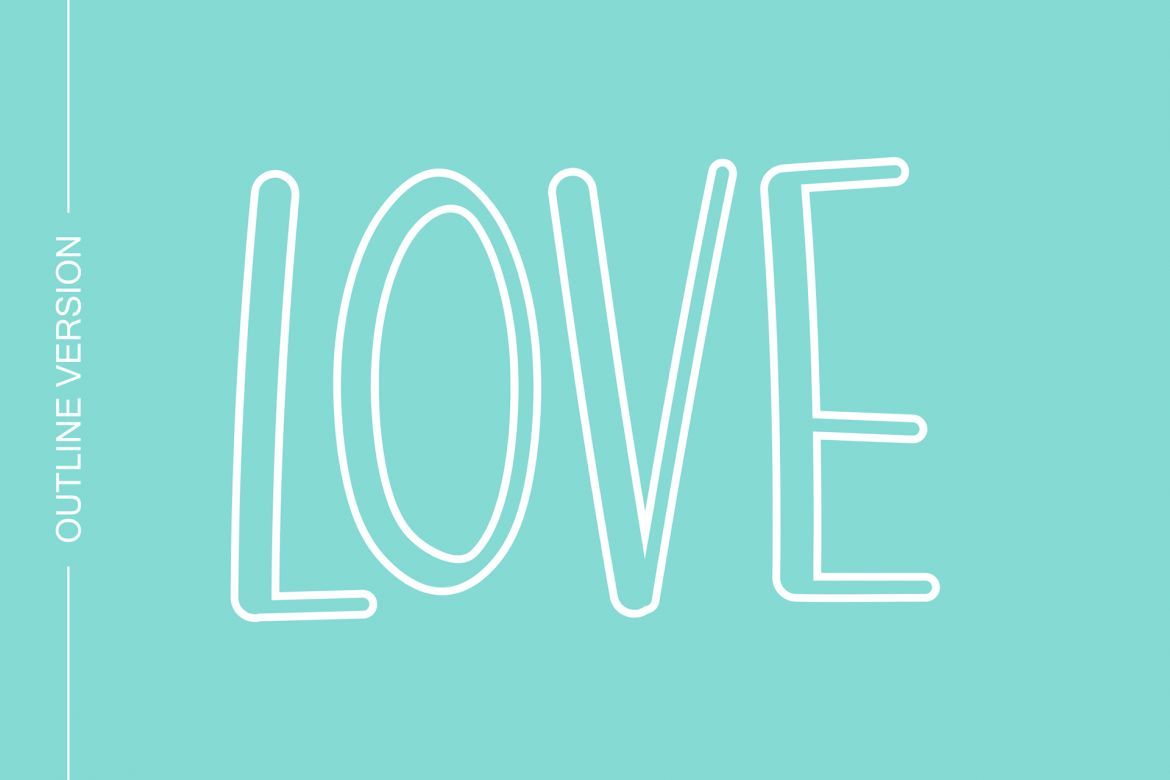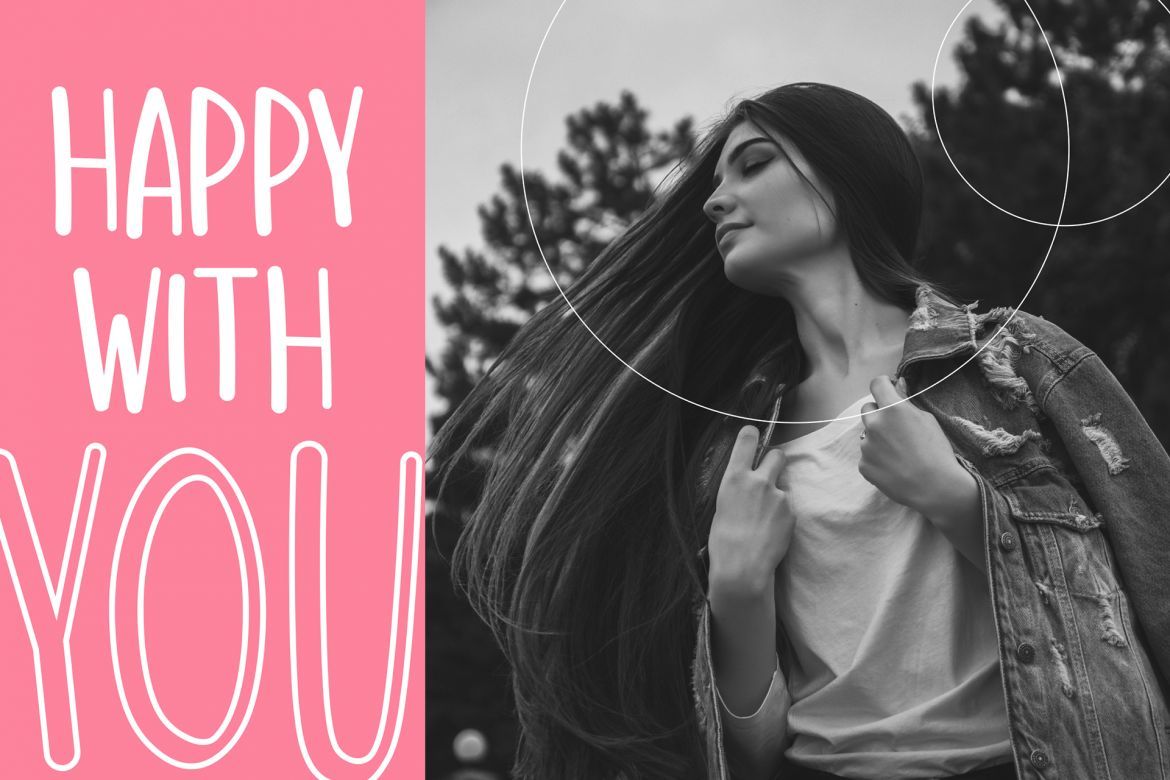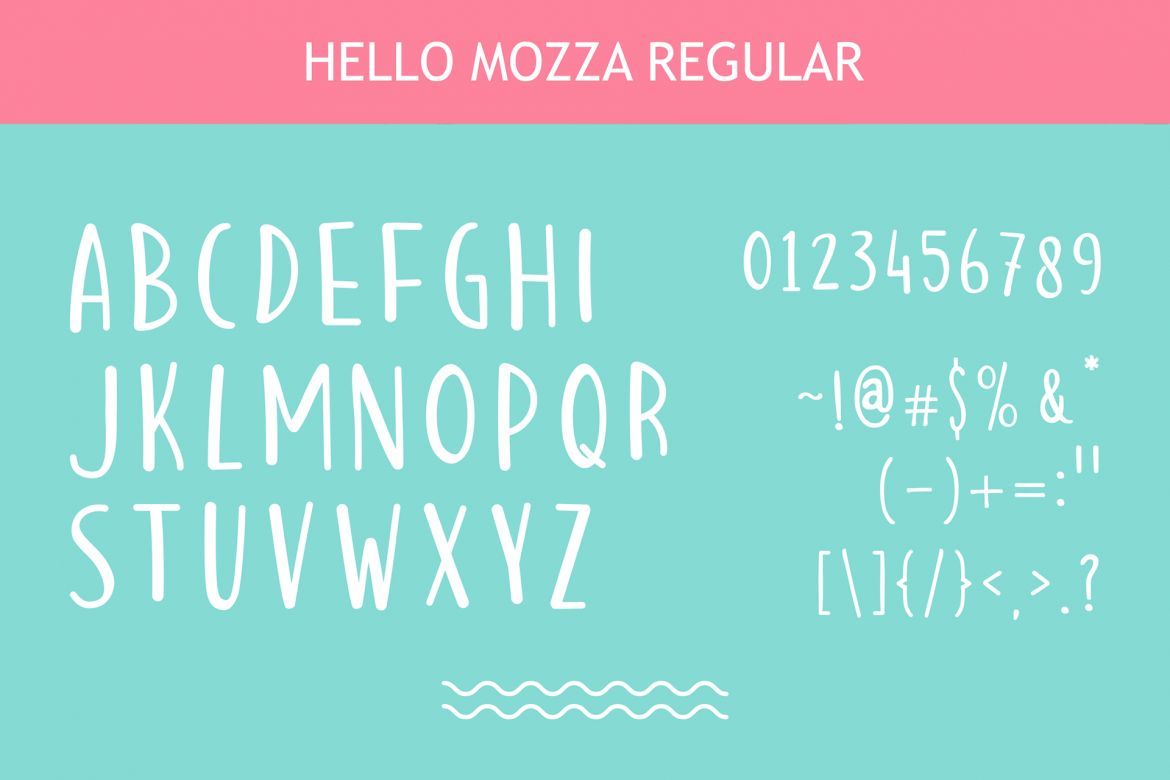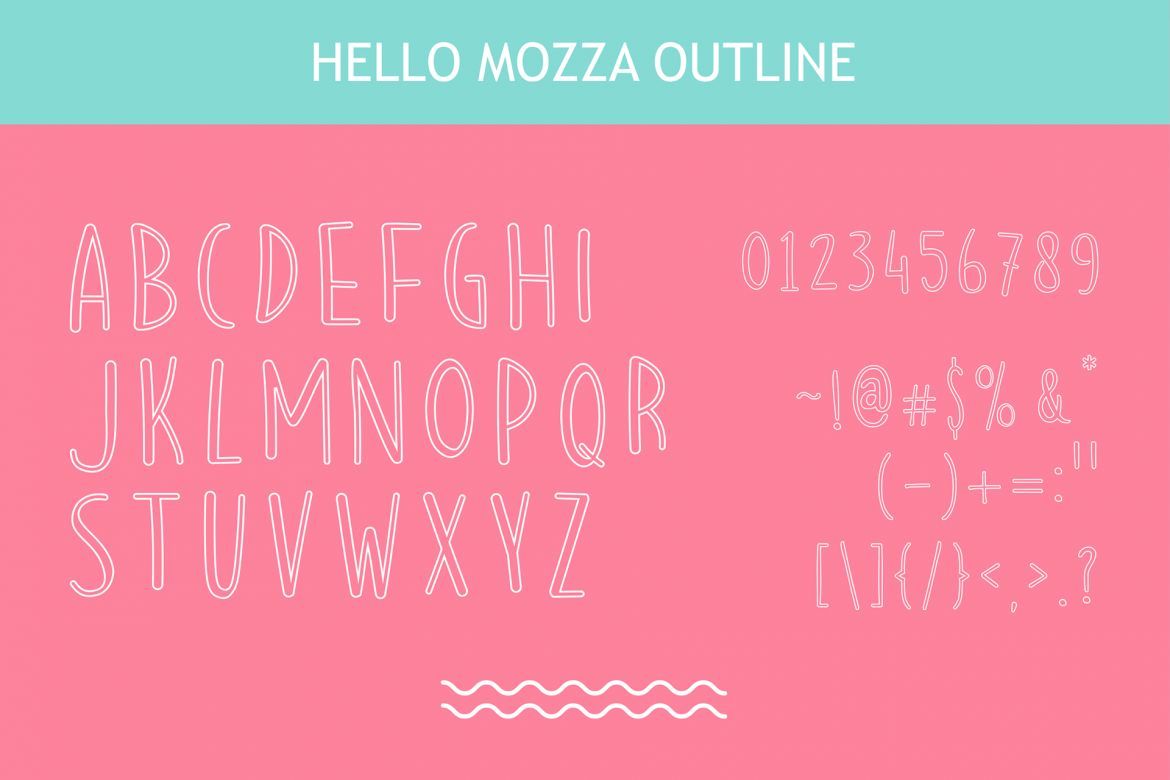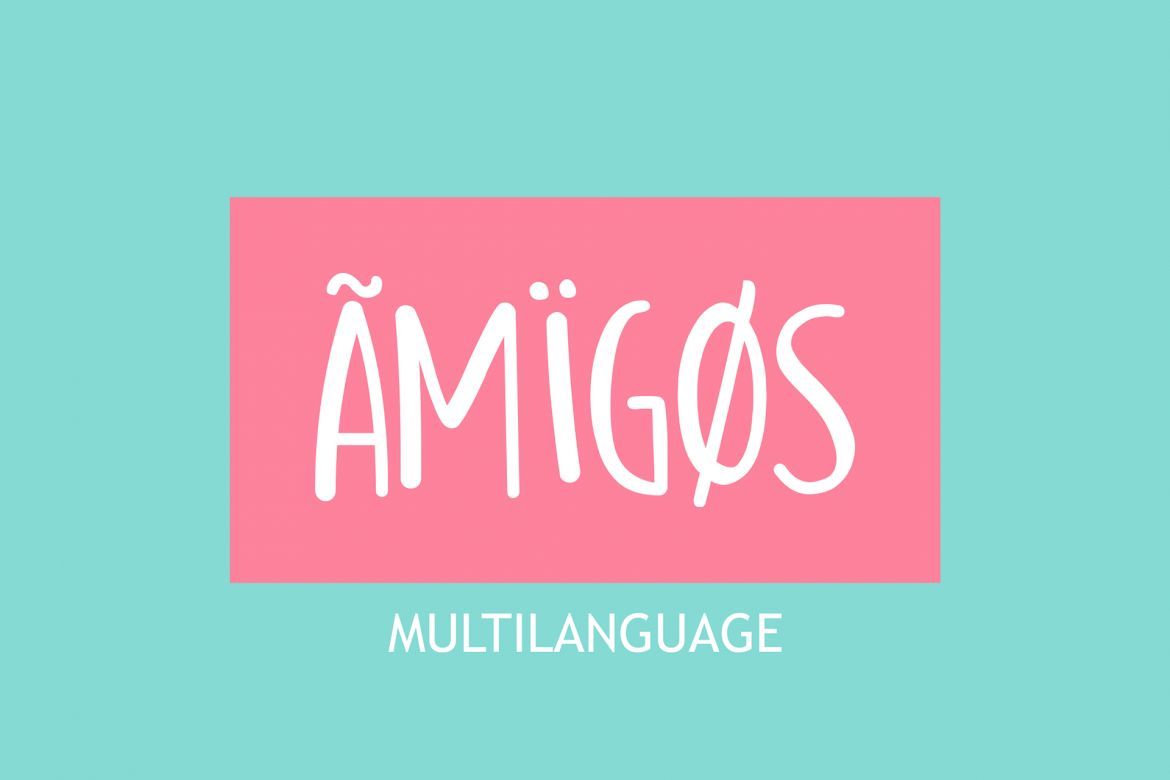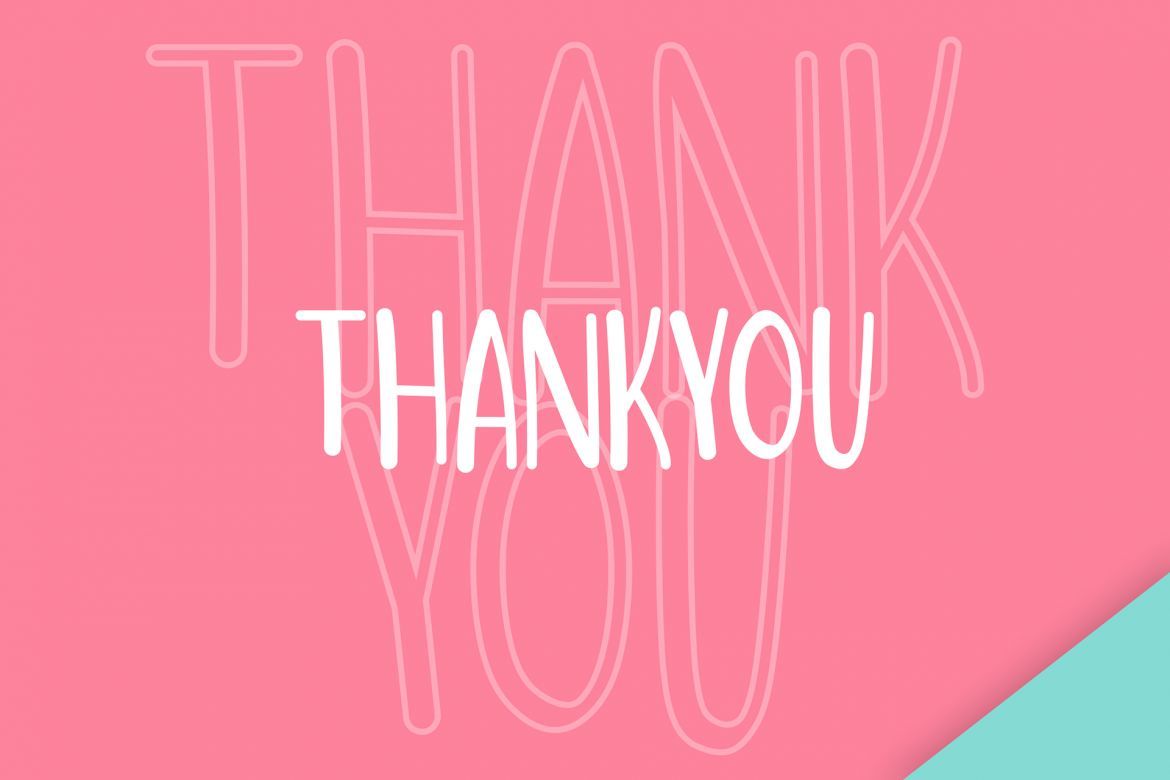
Hello Mozza Font
Hello Mozza is a unique handwritten font. its unique flow makes it perfect to use for quotes, logotype, badges, labels, packaging, or simply use it in your next design project. Hello Mozza comes with all caps characters, numbers, marks, and punctuation . its also comes with two styles, regular and outline and support multilanguage.
• comes with two styles, regular and outline and support multilanguage.